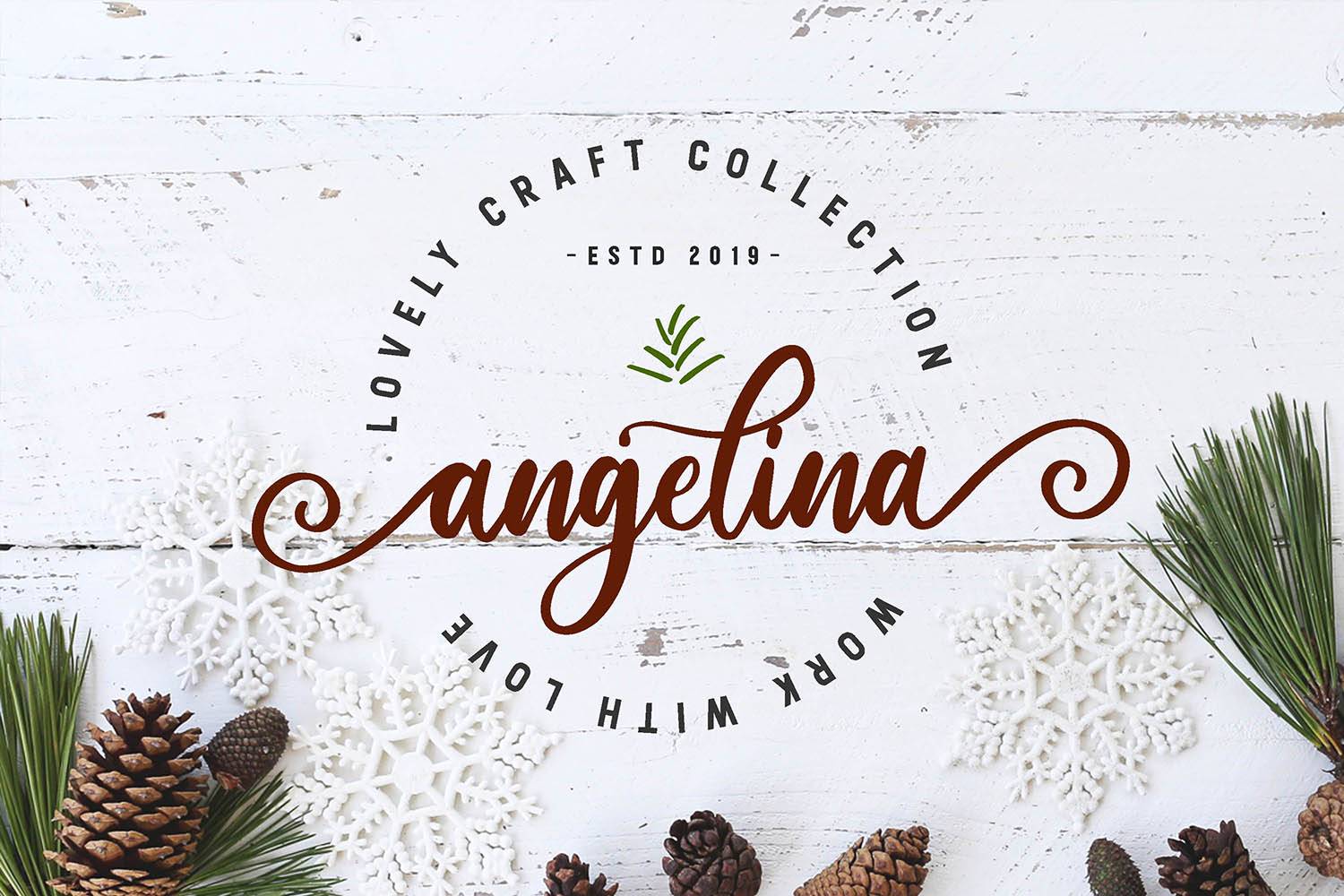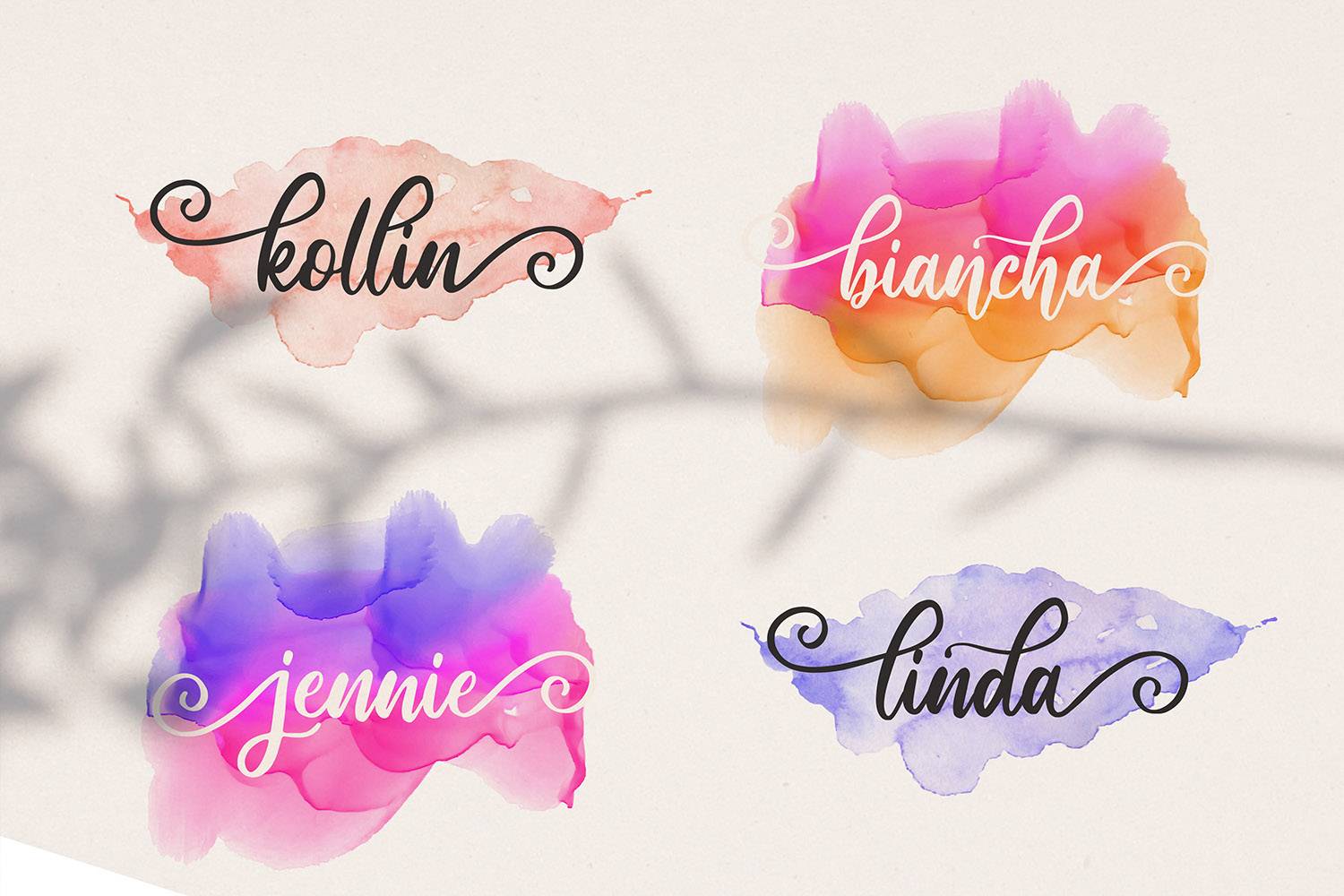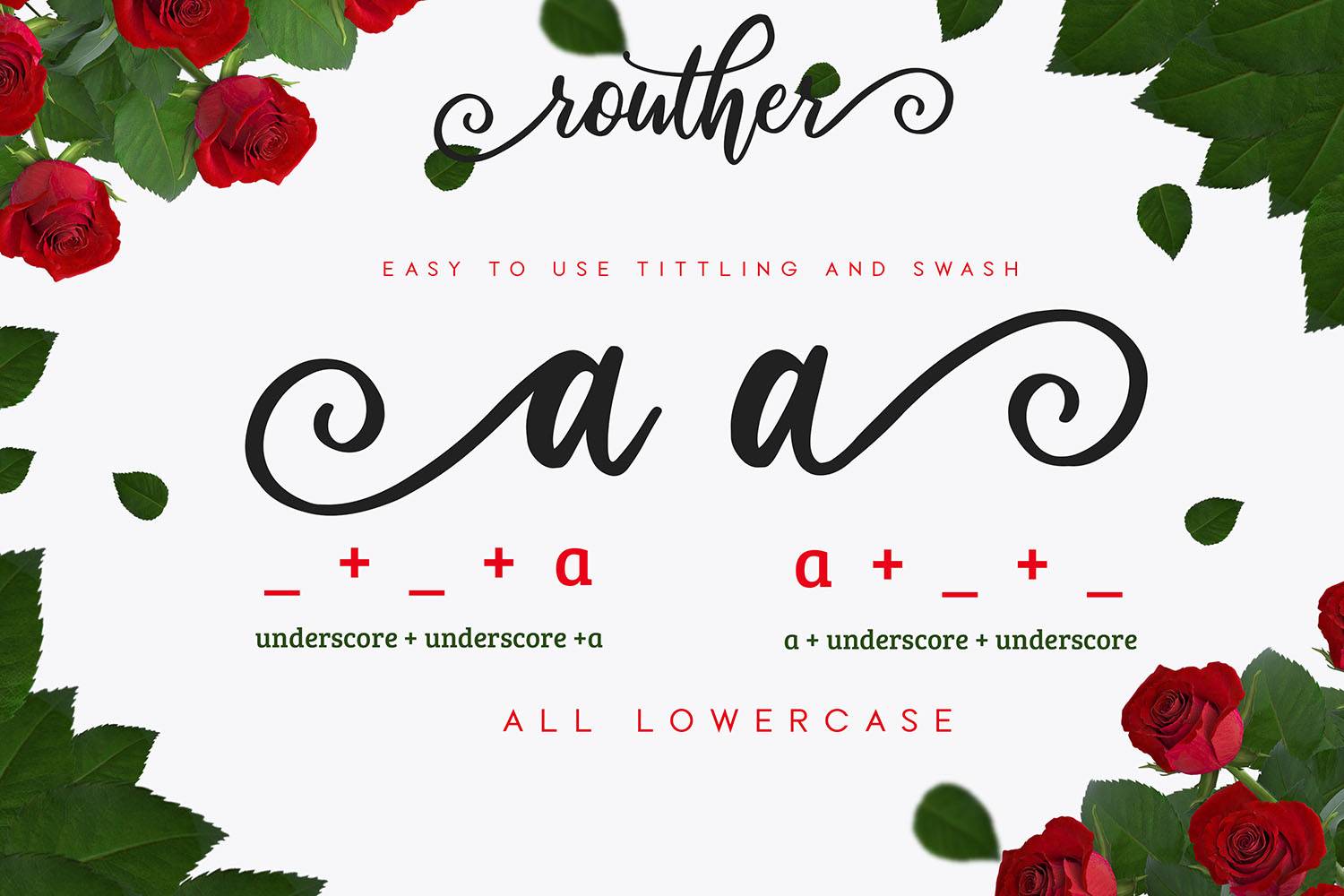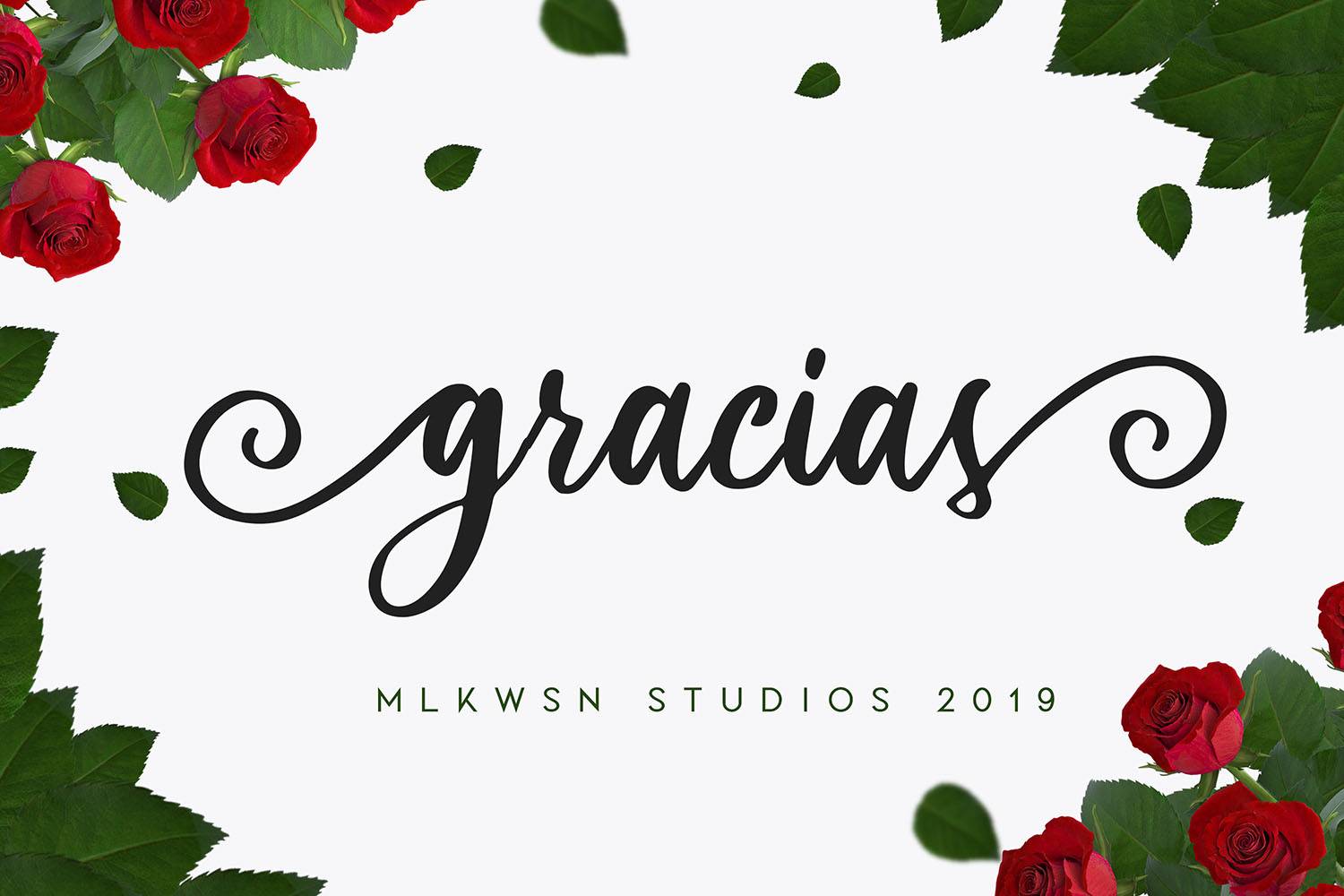
Routher is an elegant script font that combines smooth, flowing strokes with a fresh, modern calligraphic style. Its balanced weight and slightly condensed letterforms make it perfect for adding a sophisticated, personal touch to branding, invitations, or stylish headlines. This font shines in designs that seek to convey creativity and charm with a classy, handcrafted feel.
Routher Font
About Routher Font